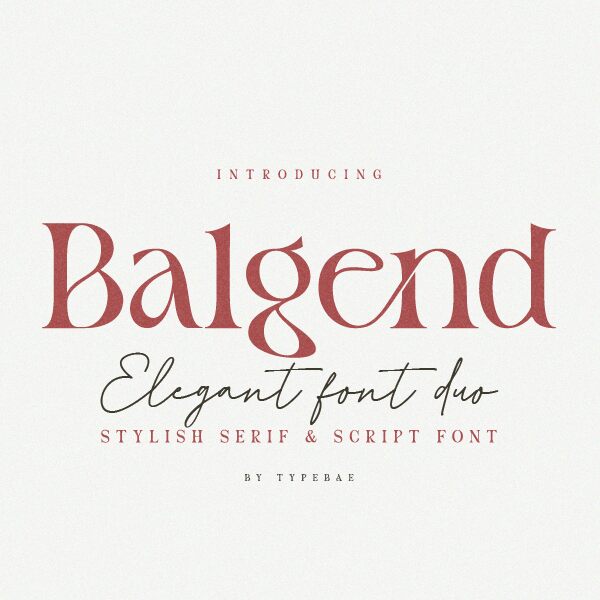
Balgend
Balgend font by Typebae Foundry is the perfect blend of elegance and modern sophistication. This free serif font features graceful lines and a sleek, refined design. The thin lettering that holds artistic flair stands out, keeping the right balance between contemporary and traditional for every project. This makes it ideal for any display use where eye-catching typography is your main requirement.
Use Balgend in branding designs, posters, headlines, blog posts, print projects as well as product packaging. Use it in magazines or book covers that people will judge by their cover and create invitation cards with exquisite planning. Website designs also come to life when users are presented with typographic elements achieved via this font available for free download today!